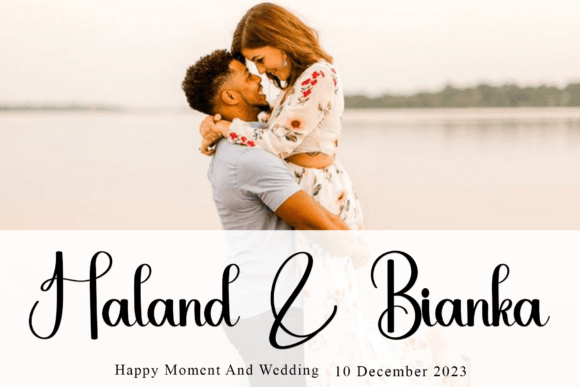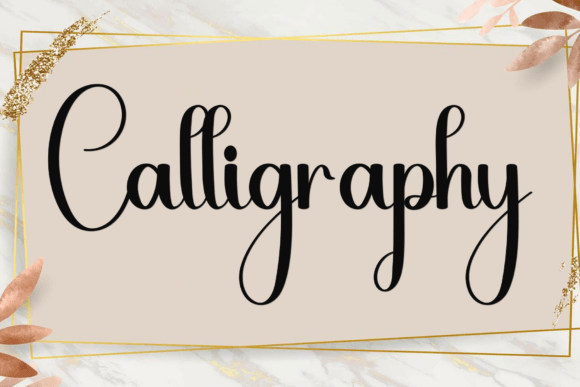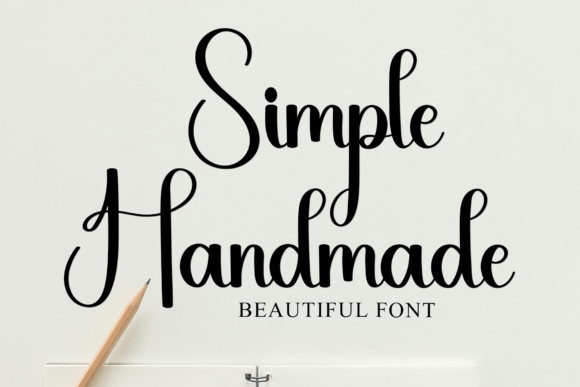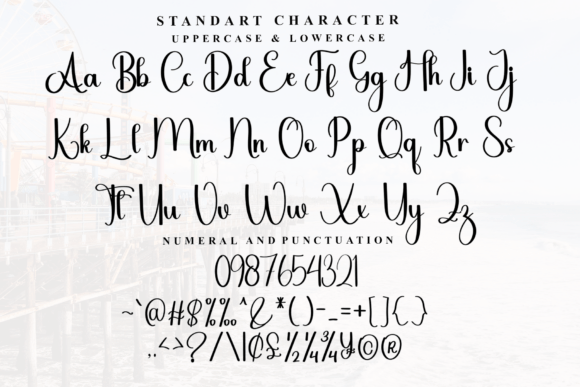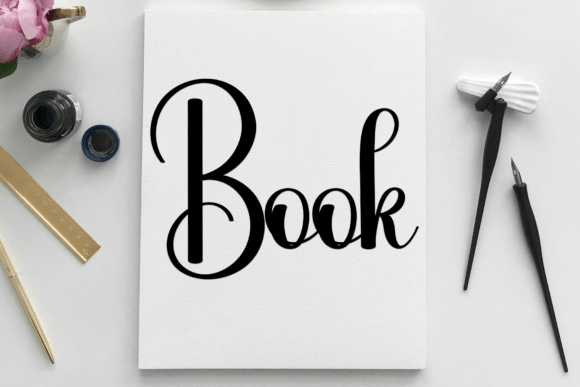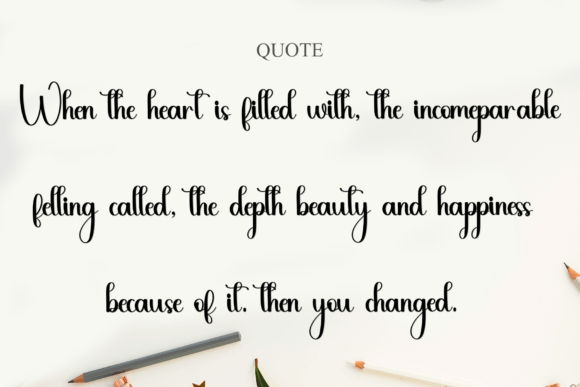
Introducing Asitha Font: The Ultimate Casual Script for Friendly Designs
Are you tired of using the same old fonts for your personal projects, invitations, and social media graphics? Look no further than Asitha Font, a casual script font that exudes warmth and friendliness. With its rounded, playful strokes, Asitha gives a relaxed and approachable feel that’s perfect for designers and crafters looking to add a touch of whimsy to their work.
The Charm of Asitha Font
Asitha’s charming, hand-drawn aesthetic is what sets it apart from other fonts. Its unique blend of rounded and smooth strokes creates a delightful, whimsical touch that’s sure to capture the attention of your audience. Whether you’re designing a birthday invitation, a social media graphic, or a personal blog post, Asitha Font is the perfect choice for adding a touch of warmth and personality to your work.
Key Features of Asitha Font
- Casual and playful strokes: Asitha’s rounded strokes give it a relaxed and approachable feel that’s perfect for informal designs.
- Hand-drawn aesthetic: Asitha’s unique, hand-drawn style adds a touch of whimsy and charm to any design.
- Warm and friendly feel: Asitha’s font style exudes warmth and friendliness, making it perfect for personal projects and social media graphics.
- Versatile: Asitha Font can be used for a variety of design projects, from invitations and social media graphics to blog posts and more.
Asitha Font is a great choice for designers and crafters looking to add a touch of personality to their work. Its unique style and versatility make it perfect for a variety of projects, from:
- Personal projects: Use Asitha Font to add a touch of warmth and friendliness to your personal projects, such as photo albums, scrapbooking, and more.
- Invitations: Asitha Font is perfect for creating custom invitations for birthdays, weddings, and other special occasions.
- Social media graphics: Use Asitha Font to create eye-catching social media graphics that are sure to capture the attention of your audience.
- Blog posts: Add a touch of personality to your blog posts with Asitha Font, perfect for lifestyle, fashion, and food bloggers.
Asitha Font is a unique and versatile casual script font that’s perfect for designers and crafters looking to add a touch of warmth and friendliness to their work. With its rounded, playful strokes and charming, hand-drawn aesthetic, Asitha Font is sure to capture the attention of your audience. Whether you’re designing a personal project, invitation, or social media graphic, Asitha Font is the perfect choice for adding a touch of whimsy and personality to your work.